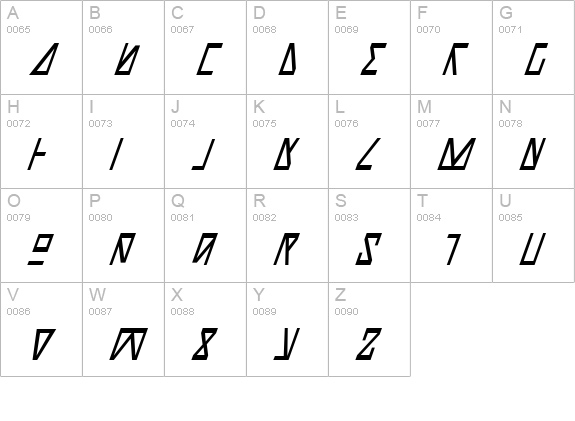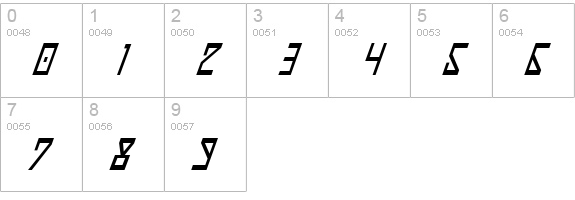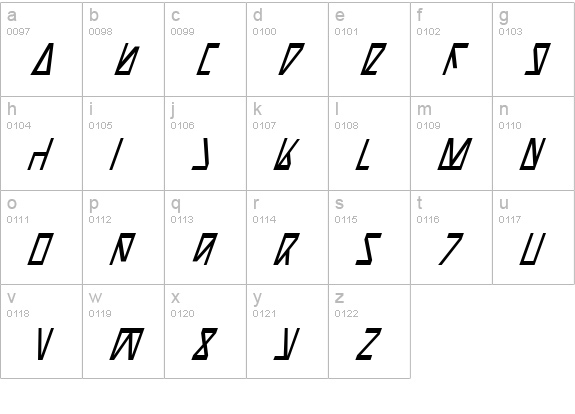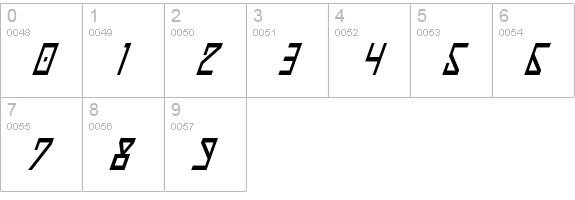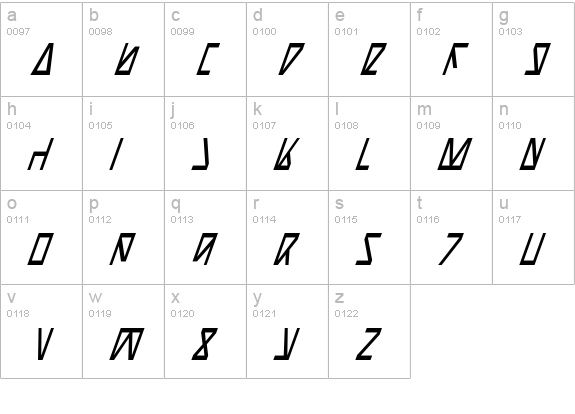
Nick Turbo Condensed Italic is a distinctive, condensed-width, italic variant in the Nick typeface family \xE2\x80\x94 well suited to design and typography projects.
Nick Turbo Condensed Italic font is a sleek and modern typeface that exudes a sense of speed and dynamism. Its condensed design and italic styling give it a unique and eye-catching appearance, making it perfect for projects that require a touch of sophistication and energy. The font's clean lines and sharp angles make it versatile and suitable for a wide range of design applications, from advertising to branding to editorial design. What's even better is that Nick Turbo Condensed Italic font is available for free download at FontsMarket.com. This means you can easily access this stylish and impactful font to enhance your creative projects without any cost. Don't miss out on the opportunity to add this bold and expressive typeface to your font collection today!